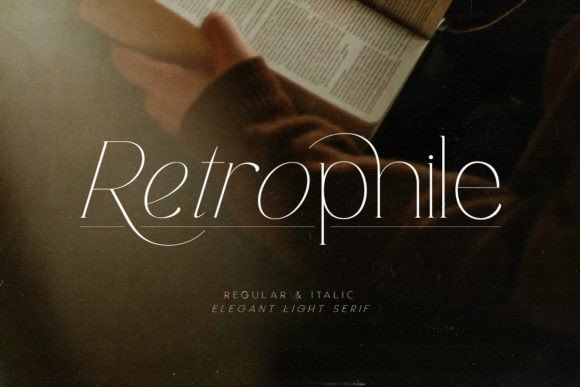
Step into a world of timeless beauty and sophistication with Retrophile Font, the exquisite serif font that exudes elegance and grace. Designed by the talented baletype, this font is a visual masterpiece that will elevate your designs to new heights.
Crafted with meticulous precision, Retrophile Font boasts a minimalist and clean look, making it the perfect choice for feminine and chic creations. Its delicate serifs add a touch of understated luxury, while its flowing lines create a sense of movement and fluidity.
With Retrophile Font, you'll discover a world of creative possibilities. Whether you're designing wedding invitations, branding materials, or social media graphics, this font will add a touch of sophistication and charm to your work. Its versatility knows no bounds, making it suitable for a wide range of projects, from elegant logos to heartfelt love letters.
Unleash your creativity and let Retrophile Font guide you on a journey of artistic expression. Its PUA encoding ensures effortless access to a treasure trove of glyphs and ligatures, empowering you to add intricate details and flourishes to your designs.